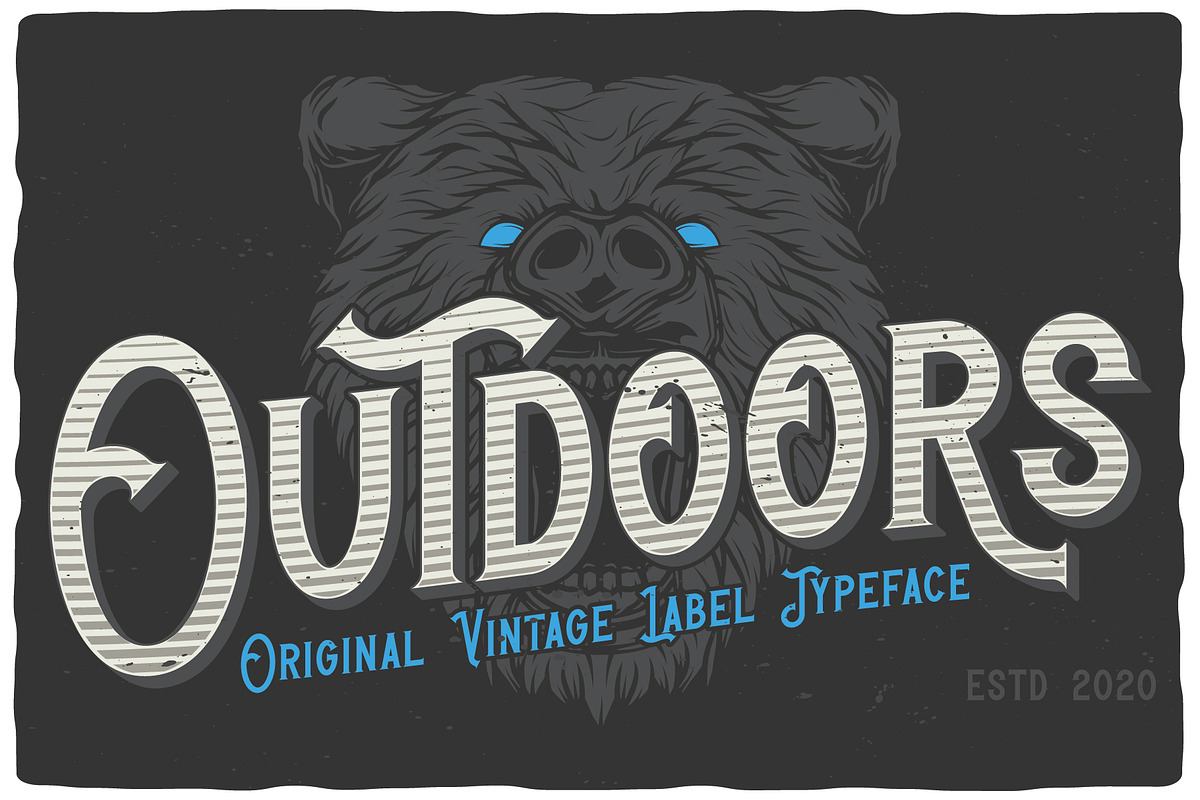
Outdoors Layered Font Free Download is a bold, adventurous typeface designed for nature lovers, explorers, and creatives who want to bring the wild into their work. With its multi-layered style, including shadow, outline, and texture options, this font is perfect for camping gear, travel posters, outdoor apparel, signage, and rustic branding.
Inspired by vintage park signs and wilderness adventures, Outdoors delivers a handcrafted, rugged aesthetic that looks amazing in both print and digital designs. Whether you're building a logo for a hiking brand or creating a poster for your next road trip, this font adds depth, character, and that timeless outdoor spirit.